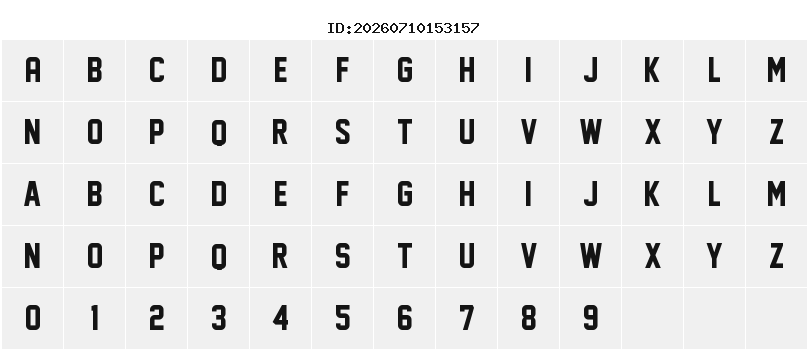
Face Off M54 Preview
• Font Name: Face Off M54
• Full Font Name: Face Off M54
• Version: Version 1.00 December 4, 2010, initial release
• Designer: Mohammed Rahman
About Face Off M54.ttf
Face Off M54.ttf is a modern, elegant sans-serif font designed for ultimate readability and visual harmony. Perfect for branding, headlines, web design, and print materials.